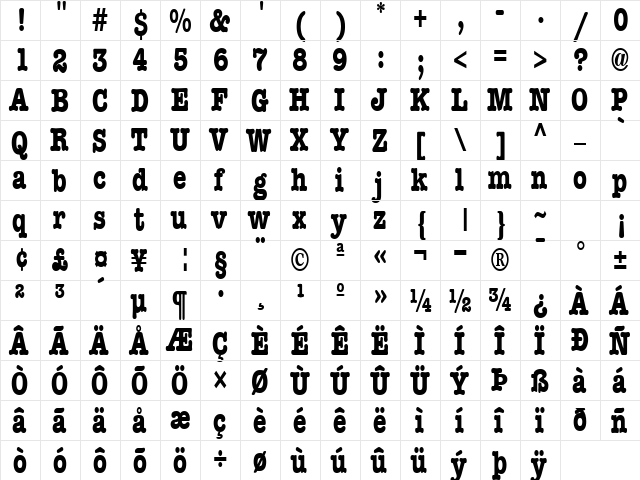
Bocci Regular
Design Context for Bocci Typeface
Bocci offers clean, dependable letterforms without strong stylistic allegiance, making it a practical choice for designers who need flexibility.